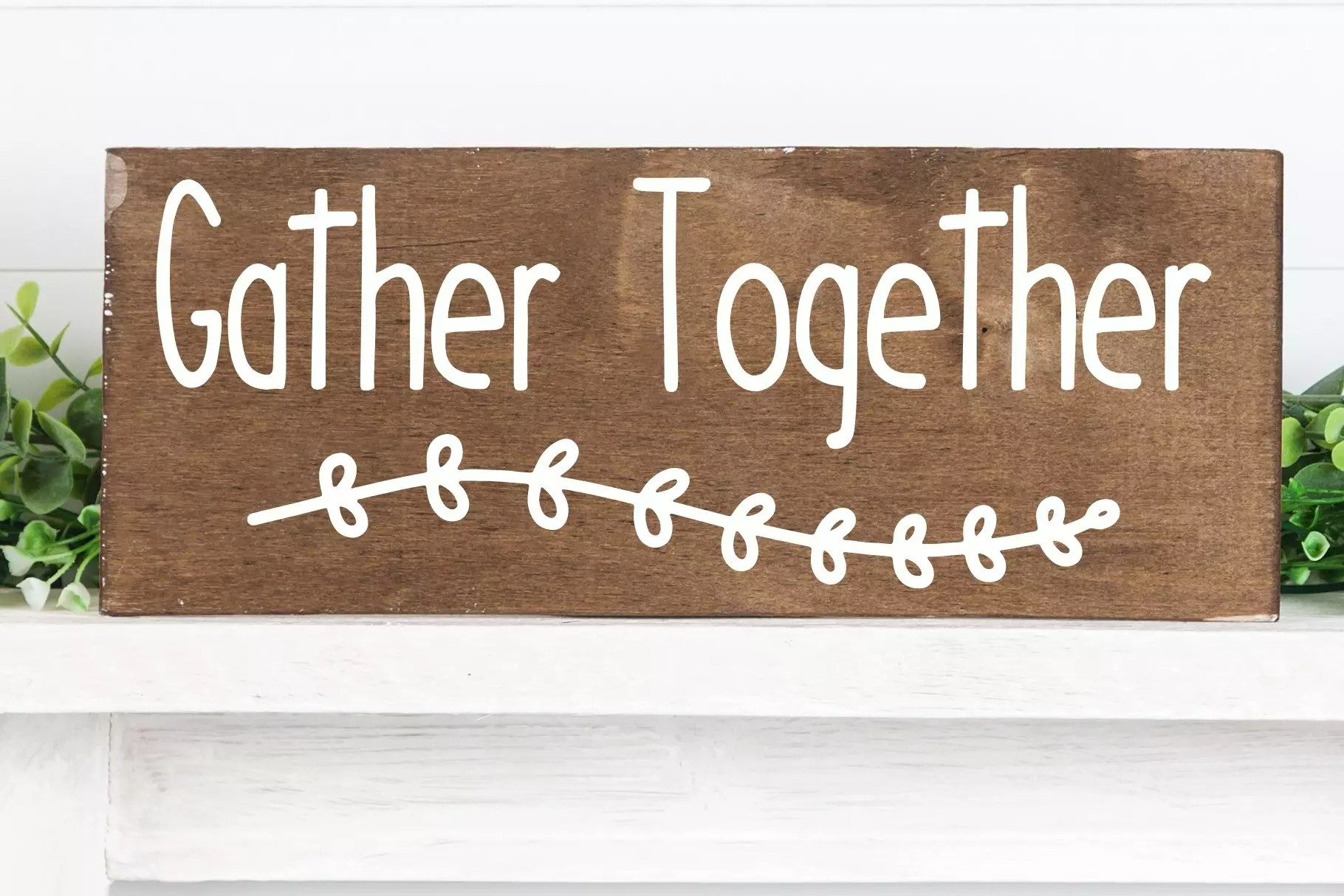
Porch Chair Font . Porch chair is a tall and skinny sans serif font that will compliment any script. Explore chair fonts at myfonts. Discover a world of captivating typography for your creative projects. This font features tall, narrow characters with a playful and casual style. The best rae dunn fonts. Download porch chair a farmhouse font (1274827) instantly now! Bfc porch chair bold farmhouse font the store will not work correctly when cookies are disabled. Unleash your design potential today! Porch chair bold is a bold version of our farmhouse font porch chair. The strokes are consistent in width, giving it a clean. Porch chair is a tall and skinny sans serif font that will compliment any script font.
This font features tall, narrow characters with a playful and casual style. Download porch chair a farmhouse font (1274827) instantly now! Discover a world of captivating typography for your creative projects. Bfc porch chair bold farmhouse font the store will not work correctly when cookies are disabled. The strokes are consistent in width, giving it a clean. Unleash your design potential today! The best rae dunn fonts. Porch chair is a tall and skinny sans serif font that will compliment any script. Porch chair is a tall and skinny sans serif font that will compliment any script font. Explore chair fonts at myfonts.
Porch Chair Font Explore chair fonts at myfonts. Download porch chair a farmhouse font (1274827) instantly now! Bfc porch chair bold farmhouse font the store will not work correctly when cookies are disabled. Unleash your design potential today! The best rae dunn fonts. Porch chair is a tall and skinny sans serif font that will compliment any script. Porch chair is a tall and skinny sans serif font that will compliment any script font. Discover a world of captivating typography for your creative projects. This font features tall, narrow characters with a playful and casual style. The strokes are consistent in width, giving it a clean. Porch chair bold is a bold version of our farmhouse font porch chair. Explore chair fonts at myfonts.
Rustic Farmhouse Etsy Porch Chair Font Porch chair is a tall and skinny sans serif font that will compliment any script. The best rae dunn fonts. Explore chair fonts at myfonts. The strokes are consistent in width, giving it a clean. Bfc porch chair bold farmhouse font the store will not work correctly when cookies are disabled. This font features tall, narrow characters with a playful. Porch Chair Font.
chairs text logo using stylized advent font. chair symbol shape Porch Chair Font Porch chair is a tall and skinny sans serif font that will compliment any script font. The strokes are consistent in width, giving it a clean. Porch chair is a tall and skinny sans serif font that will compliment any script. This font features tall, narrow characters with a playful and casual style. Bfc porch chair bold farmhouse font the. Porch Chair Font.
PORCH CHAIR Farmhouse Font By Blush Font Co. TheHungryJPEG Porch Chair Font Explore chair fonts at myfonts. Porch chair is a tall and skinny sans serif font that will compliment any script font. Unleash your design potential today! Porch chair is a tall and skinny sans serif font that will compliment any script. The best rae dunn fonts. Download porch chair a farmhouse font (1274827) instantly now! The strokes are consistent in. Porch Chair Font.
Chair Font by Sirinart · Creative Fabrica Porch Chair Font Unleash your design potential today! The strokes are consistent in width, giving it a clean. Download porch chair a farmhouse font (1274827) instantly now! This font features tall, narrow characters with a playful and casual style. Bfc porch chair bold farmhouse font the store will not work correctly when cookies are disabled. Explore chair fonts at myfonts. Porch chair is. Porch Chair Font.
Front Porch A Handwritten Font MasterBundles Porch Chair Font The strokes are consistent in width, giving it a clean. The best rae dunn fonts. Explore chair fonts at myfonts. This font features tall, narrow characters with a playful and casual style. Discover a world of captivating typography for your creative projects. Bfc porch chair bold farmhouse font the store will not work correctly when cookies are disabled. Porch chair. Porch Chair Font.
Won Kim Chair Font Police d'écriture, Caligraphie, Typographie Porch Chair Font Porch chair is a tall and skinny sans serif font that will compliment any script. Porch chair bold is a bold version of our farmhouse font porch chair. Discover a world of captivating typography for your creative projects. This font features tall, narrow characters with a playful and casual style. Bfc porch chair bold farmhouse font the store will not. Porch Chair Font.
The Red Chair is on the Front Lawn in Font of the Porch. Stock Image Porch Chair Font Porch chair bold is a bold version of our farmhouse font porch chair. Unleash your design potential today! This font features tall, narrow characters with a playful and casual style. The strokes are consistent in width, giving it a clean. Porch chair is a tall and skinny sans serif font that will compliment any script font. The best rae dunn. Porch Chair Font.
Front Porch Script Lettering alphabet, Lettering, Brush lettering font Porch Chair Font The best rae dunn fonts. Discover a world of captivating typography for your creative projects. Unleash your design potential today! Explore chair fonts at myfonts. Porch chair is a tall and skinny sans serif font that will compliment any script. Porch chair is a tall and skinny sans serif font that will compliment any script font. Bfc porch chair bold. Porch Chair Font.
LetterShaped Kids' Chairs Spell Whatever You Want Designs & Ideas on Porch Chair Font The strokes are consistent in width, giving it a clean. Explore chair fonts at myfonts. This font features tall, narrow characters with a playful and casual style. Unleash your design potential today! Bfc porch chair bold farmhouse font the store will not work correctly when cookies are disabled. Porch chair is a tall and skinny sans serif font that will. Porch Chair Font.